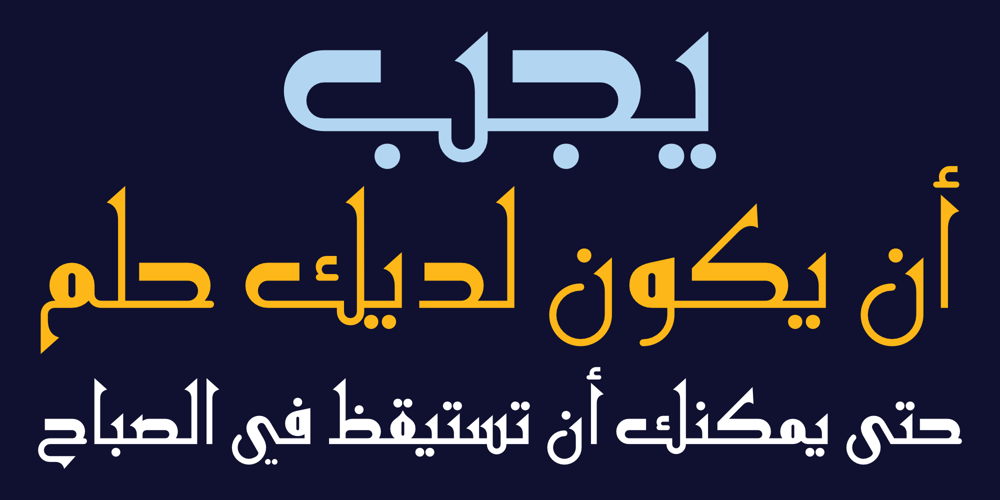
HS AlBasim A Font Family was designed by Hasan Abu Afash and published by Hiba Studio. HS AlBasim A contains 2 styles and family package options. HS Albasim A is an Arabic display typeface. It is useful for headlines, books covers and other graphic projects. It is a collaborative effort, as “HS Albasim A” first letters were designed and drawn by Basim Salem Al Mahdi from Iraq and then developed and digitalized as a typeface by Hasan AbuAfash from Palestine. The font is based on the simple lines of Fatmic Kufi but was it distinguished by two main ideas: First, it contains a nice serf in the vertical strokes of its letters. The second, some of storks in its letter differ in the thickness instead of being similar, as it is in the Fatmic Kufi style. The font contains only two weights: regular and bold. Both of them support the OpenType features of Arabic, Persian and Urdu.